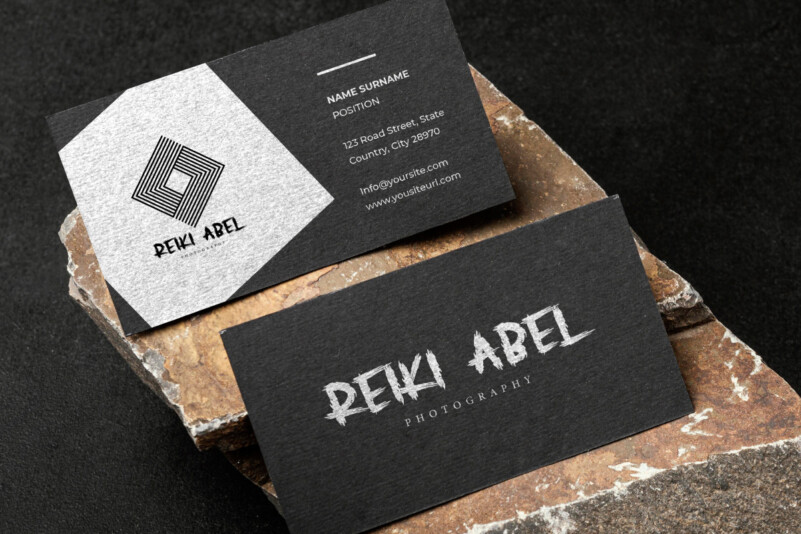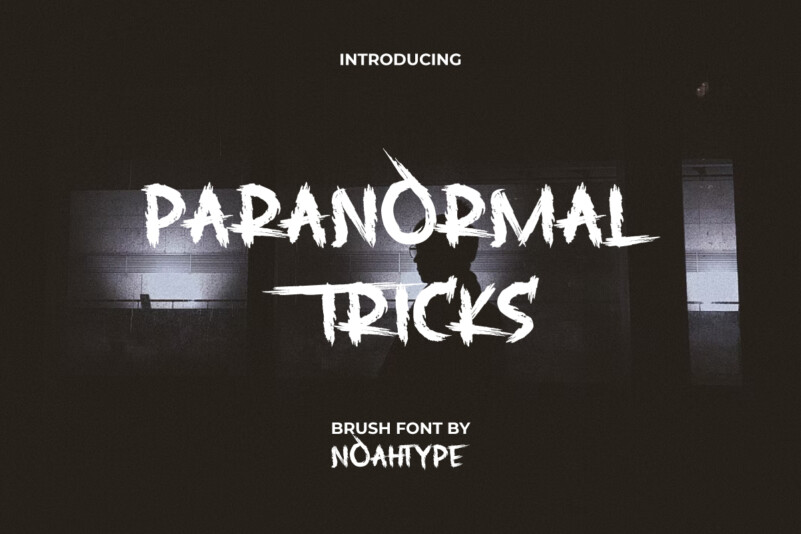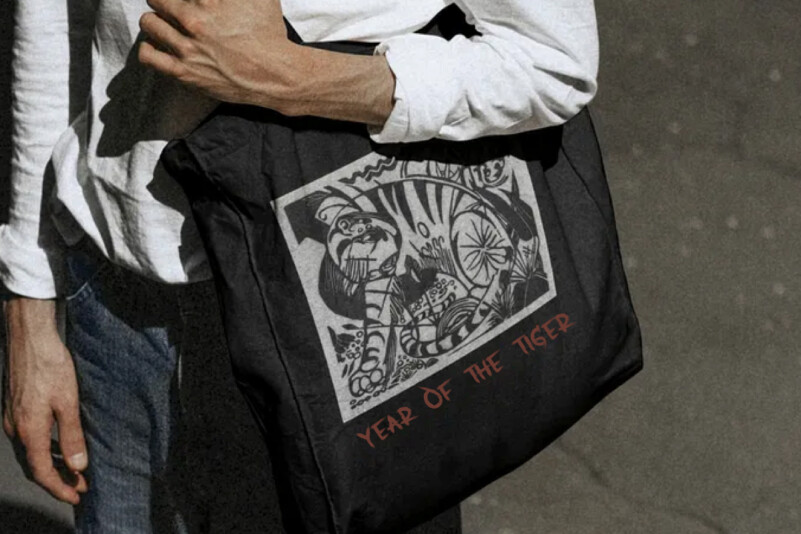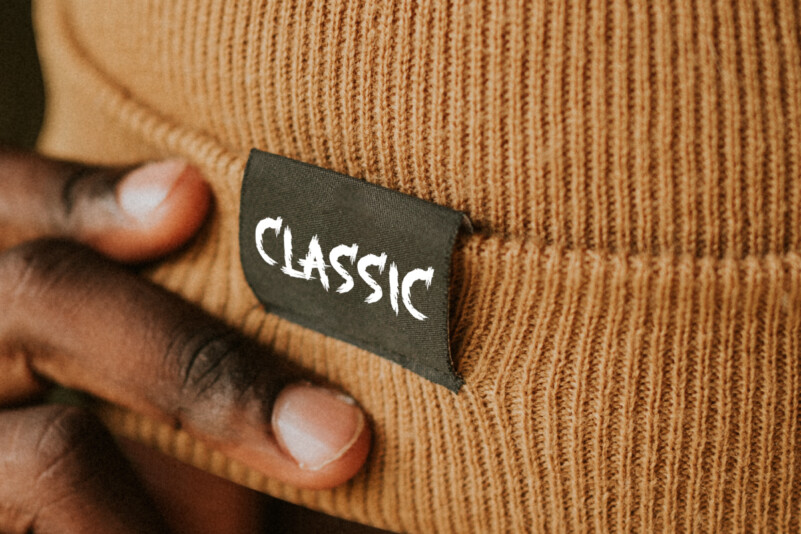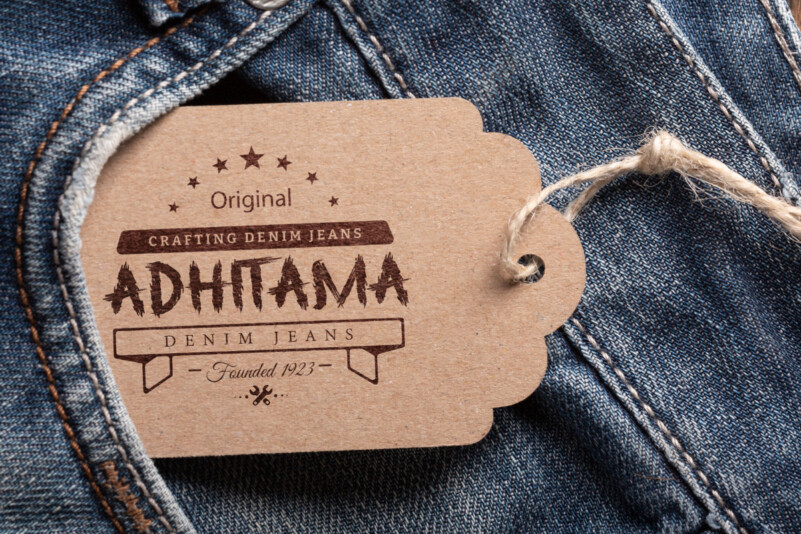
Paranormal Tricks Font
Paranormal Tricks Font is a mysterious horror display font with special sketched texture. This font will add a spooky handwriting look twist to any design project. This brush font is for anyone who are needing of special scary look on their designs. This brush font will be awesome for accessories, fashion, game, magazine, movie, music, photography, writer, and more!
Paranormal Tricks Font includes full set of ALL CAPS Basic Characters, Numerals and Punctuation. Also it contains alternate characters to perfectly make horror look that add more scary and aesthetic fonts to perfect your extraordinary project. Paranormal Tricks will be awesome for business card, catalog, invitation, poster, quote, website, etc.